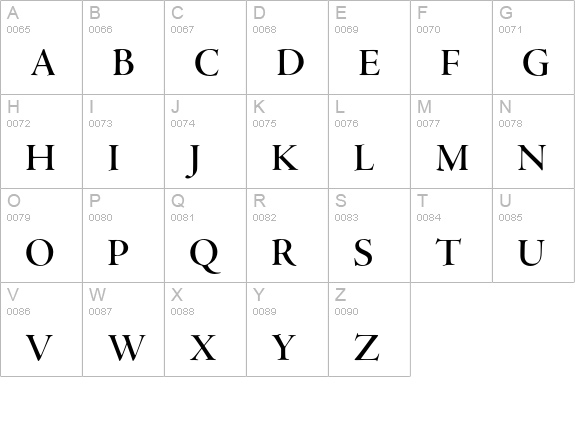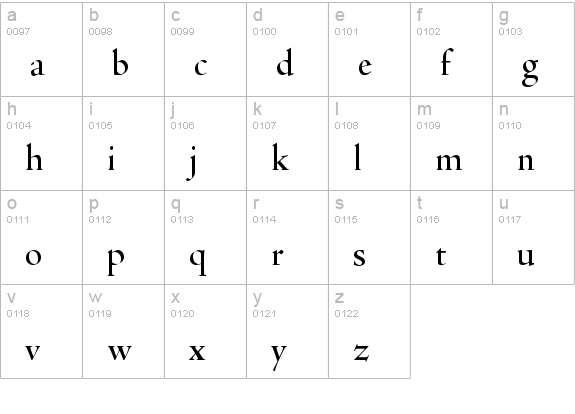
Adobe Jenson Pro Semibold Display is a sub-bold, structured variant in the Adobe typeface family \xE2\x80\x94 well suited to sub-headlines and emphasised passages.
Adobe Jenson Pro Semibold Display font is a stunning and versatile typeface that exudes elegance and sophistication. With its bold and commanding presence, this font is perfect for adding a touch of modern flair to any design project. Its clean lines and strong serifs make it ideal for headings, titles, and other display purposes. What makes Adobe Jenson Pro Semibold Display font even more appealing is that it is available for free download at FontsMarket.com. This means that you can easily access this premium font without any cost, making it a valuable addition to your font library. Whether you're working on branding, advertising, or editorial design, this font will help you make a bold statement and stand out from the crowd. Don't miss out on the opportunity to enhance your designs with the timeless elegance of Adobe Jenson Pro Semibold Display font. Download it for free today and take your projects to the next level!